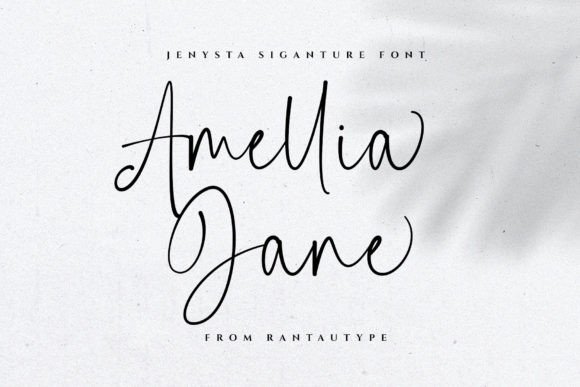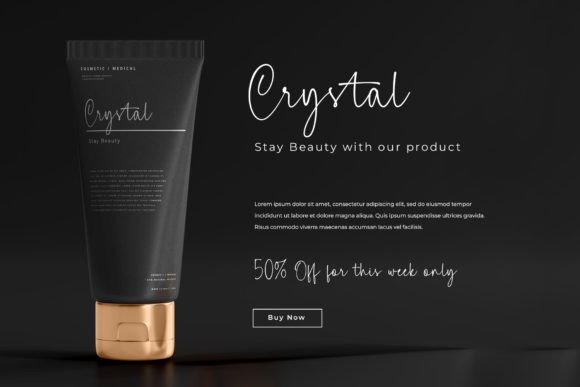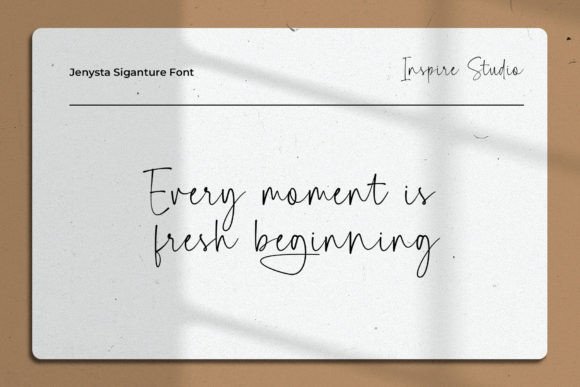
Introduction to Jesyta Font
Have you ever found yourself stuck in the middle of a creative project, struggling to find the perfect font to elevate your design? You’re not alone. We’ve all been there, scrolling through font libraries, searching for that one special font that captures the essence of our vision. And then, suddenly, you stumble upon it – the perfect font that makes all the difference. For many designers, that font is Jesyta Font, a stunning choice for any creative endeavor.
Jesyta Font is more than just a font – it’s a design resource that offers high quality and versatility. With its chic and elegant design, it’s perfect for a wide range of projects, from logos and branding to magazine covers and wedding events. And the best part? It’s available for free download, making it a valuable addition to any designer’s toolkit.
Whether you’re working on a corporate project or a personal creative pursuit, Jesyta Font is a valuable asset that can help take your design to the next level. Its transparent background and sleek design make it a great choice for projects that require a touch of sophistication and elegance. In this article, we’ll explore the world of Jesyta Font and discover why it’s a must-have for designers of all levels.
Key Features of Jesyta Font
- High-quality, unique font design suitable for creative projects and designs.
- Unique characteristics include its elegant and modern style, making it perfect for creative projects and designs.
Honest Review: Jesyta Font
I recently stumbled upon the Jesyta Font, a free download that caught my attention for its unique aesthetic and design versatility. This high-quality font is definitely a valuable addition to any design resource.
What works well: ✨ The Jesyta Font is incredibly easy to use, with a transparent background that makes it simple to layer over other design elements. I’ve found it to be particularly useful for creative projects that require a bold, eye-catching font. The font’s clean lines and modern design make it perfect for a wide range of applications, from digital to print media.
Here are some specific features that I appreciate:
- High-quality design that’s perfect for both digital and print media
- Easy to use, with a transparent background that simplifies layering
- Modern aesthetic that’s perfect for creative projects
⚠️ One potential limitation of the Jesyta Font is that it may not be as versatile as some other fonts, particularly for more complex or formal designs. However, for most creative projects, I find it to be more than sufficient.
Overall, I’m thoroughly impressed with the Jesyta Font and would highly recommend it to designers looking for a high-quality, free download to add to their design resource arsenal.
Tips for Getting the Most Out of Jesyta Font
For optimal results, use the Jesyta Font on a transparent background to create a clean and minimalist look. Experiment with different font sizes and styles to find the perfect combination for your design project.
Common Use Cases for Jesyta Font
The Jesyta Font is perfect for creative projects, such as logos, branding materials, and social media graphics. Its unique design makes it ideal for adding a touch of sophistication to your designs.